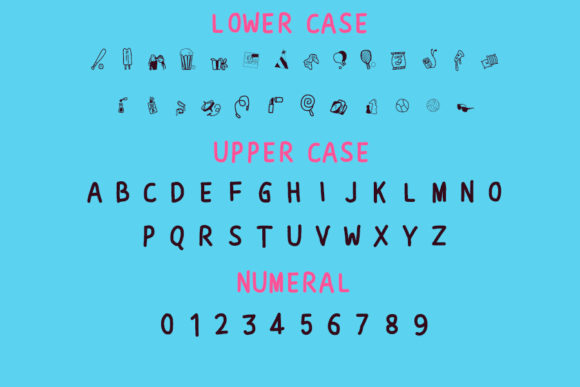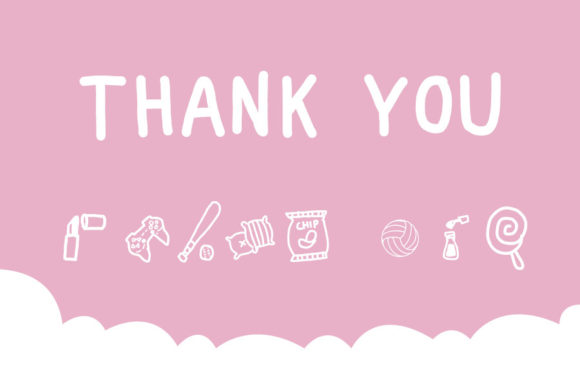
The Ultimate Guide to Best Friend Font: Adding a Personal Touch to Your Designs
I’ll never forget the time I was working on a project for a client’s wedding invitation. I had the perfect design concept, but I was struggling to find a font that captured the playful, whimsical feel of their special day. That’s when I stumbled upon Best Friend font, a cute and quirky handwritten font that instantly became my go-to. In this article, I’ll share my honest review of Best Friend font, a practical guide on how to use it, and some helpful tips and tricks to get the most out of this amazing font.
My Honest Review of Best Friend Font
Best Friend font has quickly become a staple in my design toolkit, and for good reason. Here are some things I love about it:
- ✨ Authentic look: Best Friend font has a genuine, handwritten feel that’s perfect for adding a personal touch to your designs.
- ✅ Versatility: This font is suitable for a wide range of projects, from chalkboard quotes to teaching materials.
- 💕 Cute and quirky: Best Friend font has a playful personality that’s sure to bring a smile to your face.
Of course, no font is perfect, and Best Friend font has a few small quirks:
- 🤔 Limited character set: While Best Friend font has a wide range of characters, it may not have every special character or glyph you need.
- ⚠️ Not suitable for body text: Due to its playful, handwritten nature, Best Friend font is best used for headings or titles, rather than body text.
The Story Behind Best Friend Font
Best Friend font was designed with the intention of creating a friendly, approachable font that’s perfect for everyday designs. The designer wanted to create a font that felt like a handwritten note from a friend, and I think they succeeded! With its playful personality and authentic look, Best Friend font is sure to become a favorite in your design toolkit.
| What is Best Friend font best used for? | Best Friend font is perfect for chalkboard quotes, teaching materials, and any design project that requires a playful, handwritten feel. |
| Is Best Friend font available in different languages? | Best Friend font may not have a wide range of language support, but it does include a range of characters and glyphs to help you create multilingual designs. |